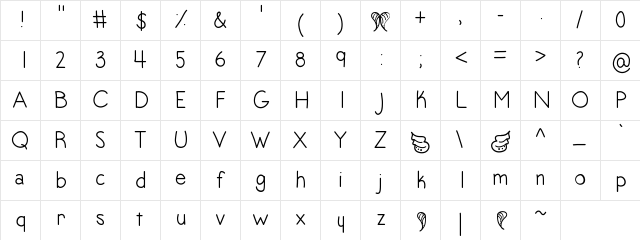
AngelToes Medium
Design Context for AngelToes
AngelToes is a composed and adaptable typeface that performs quietly and consistently across a wide range of design contexts.